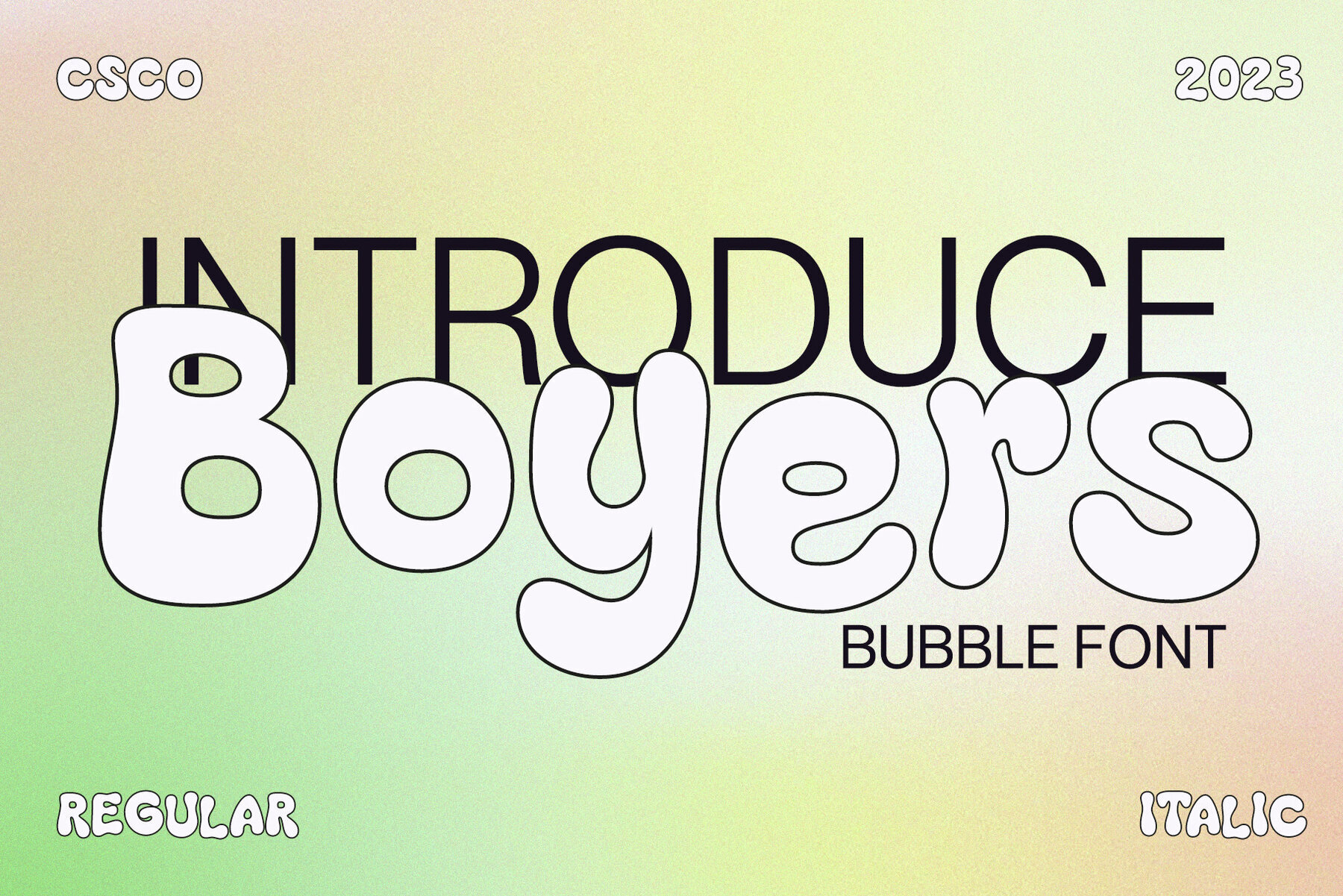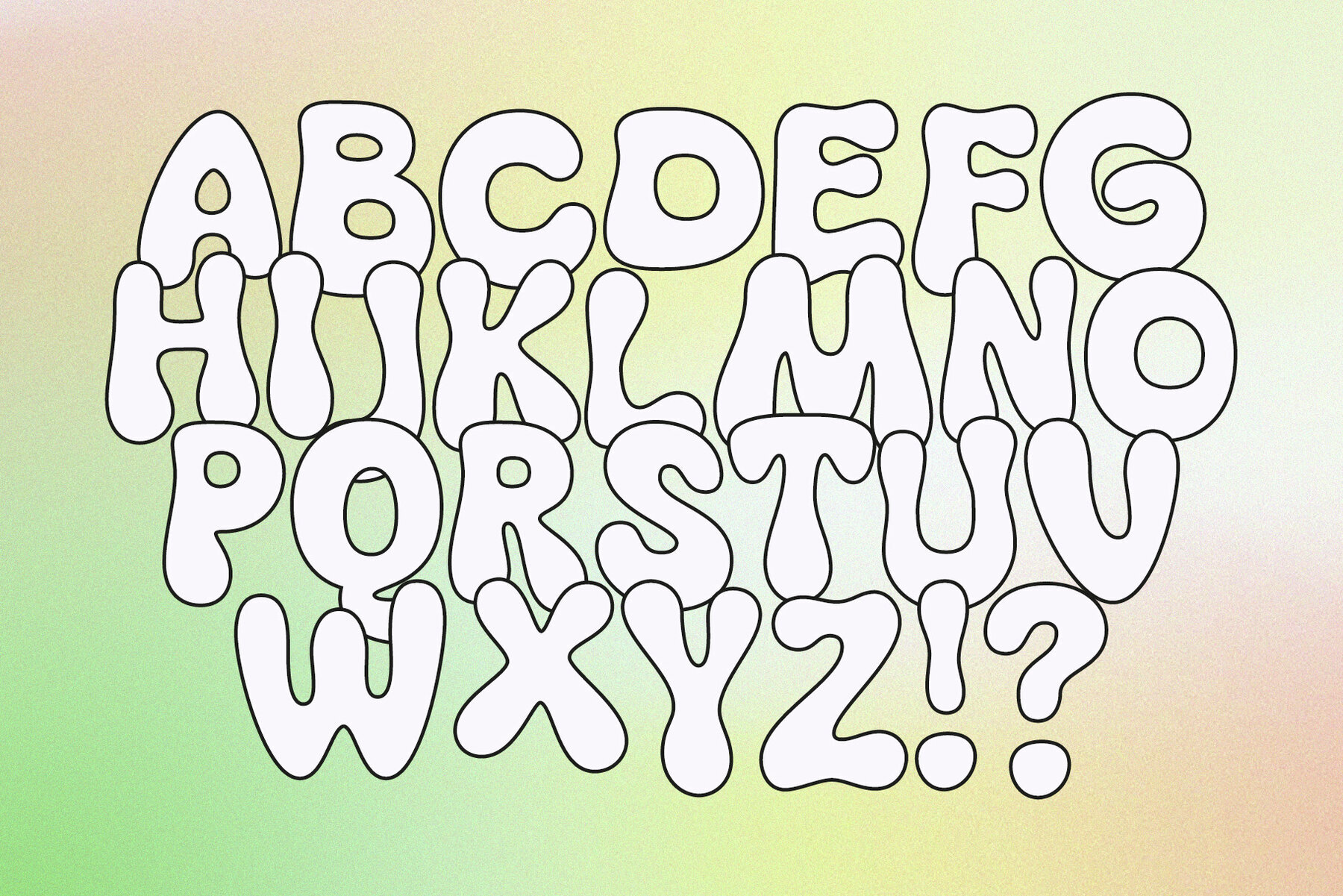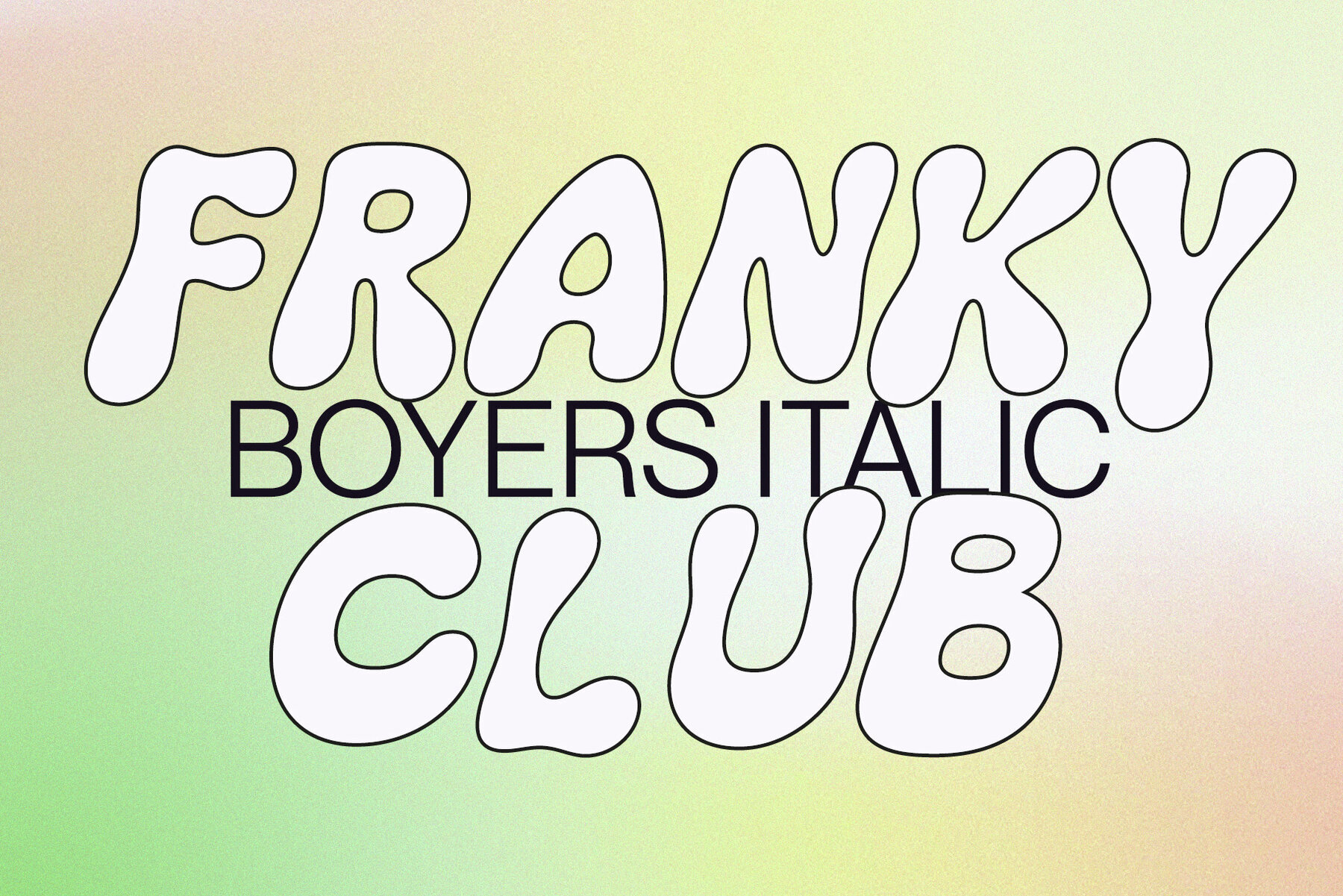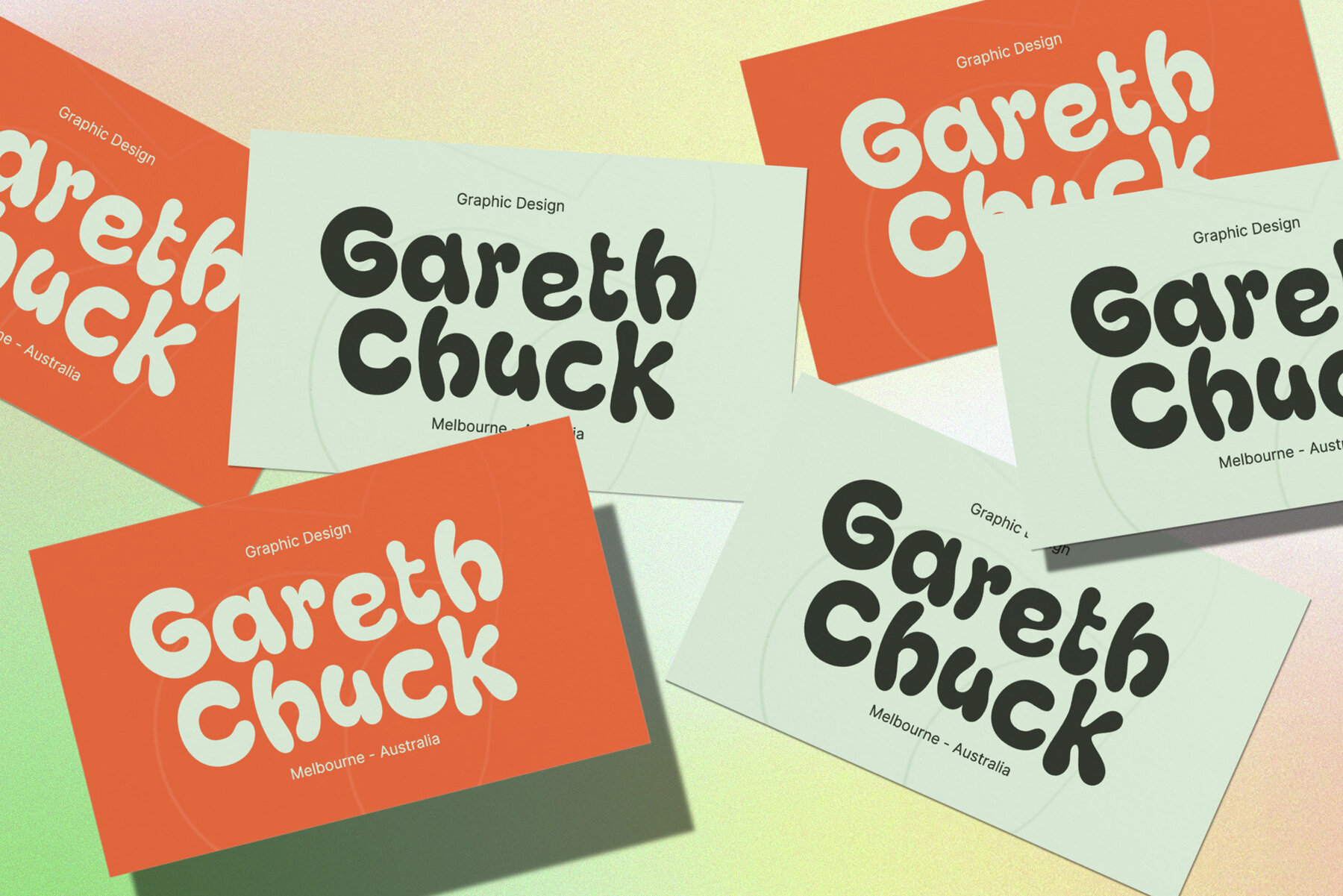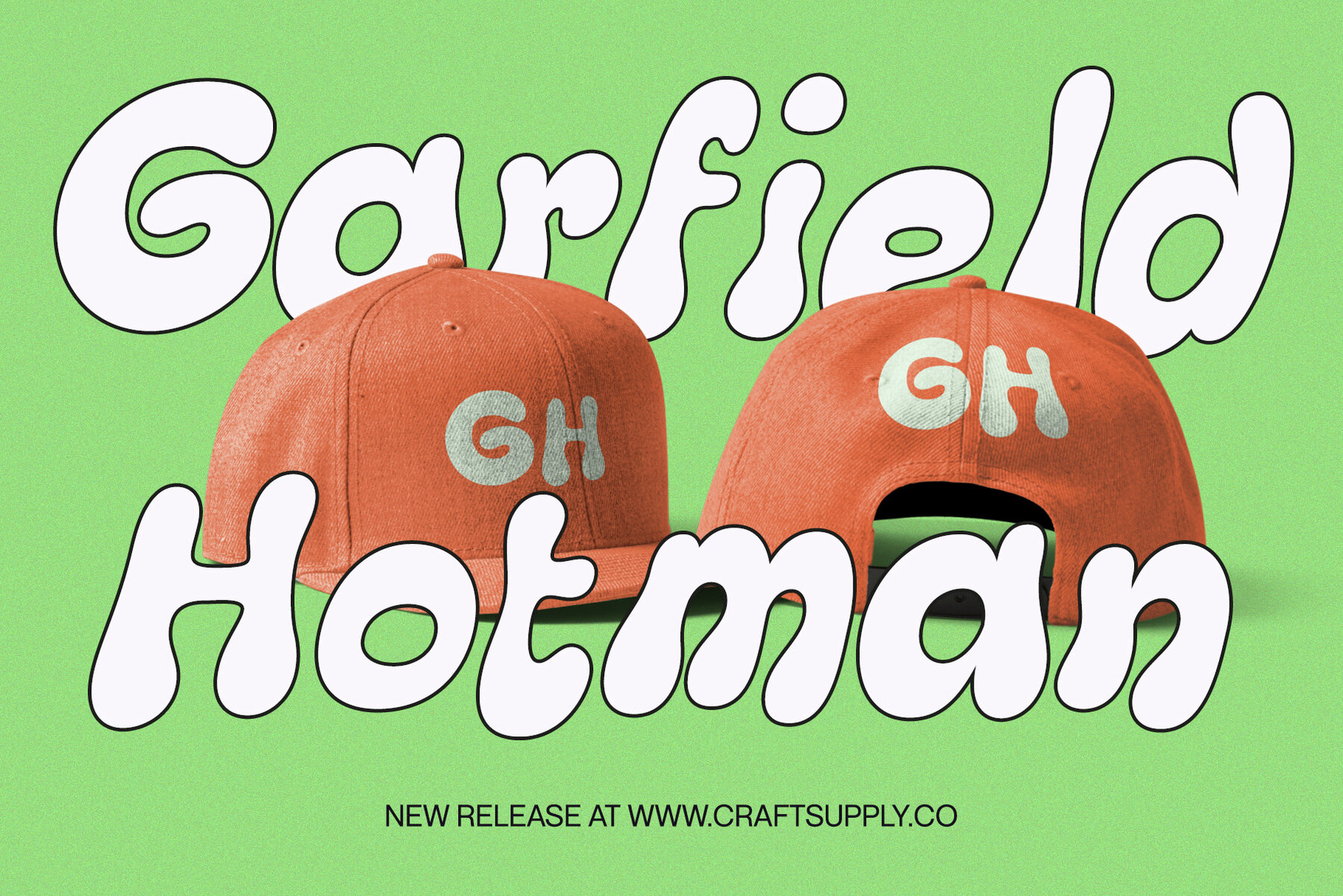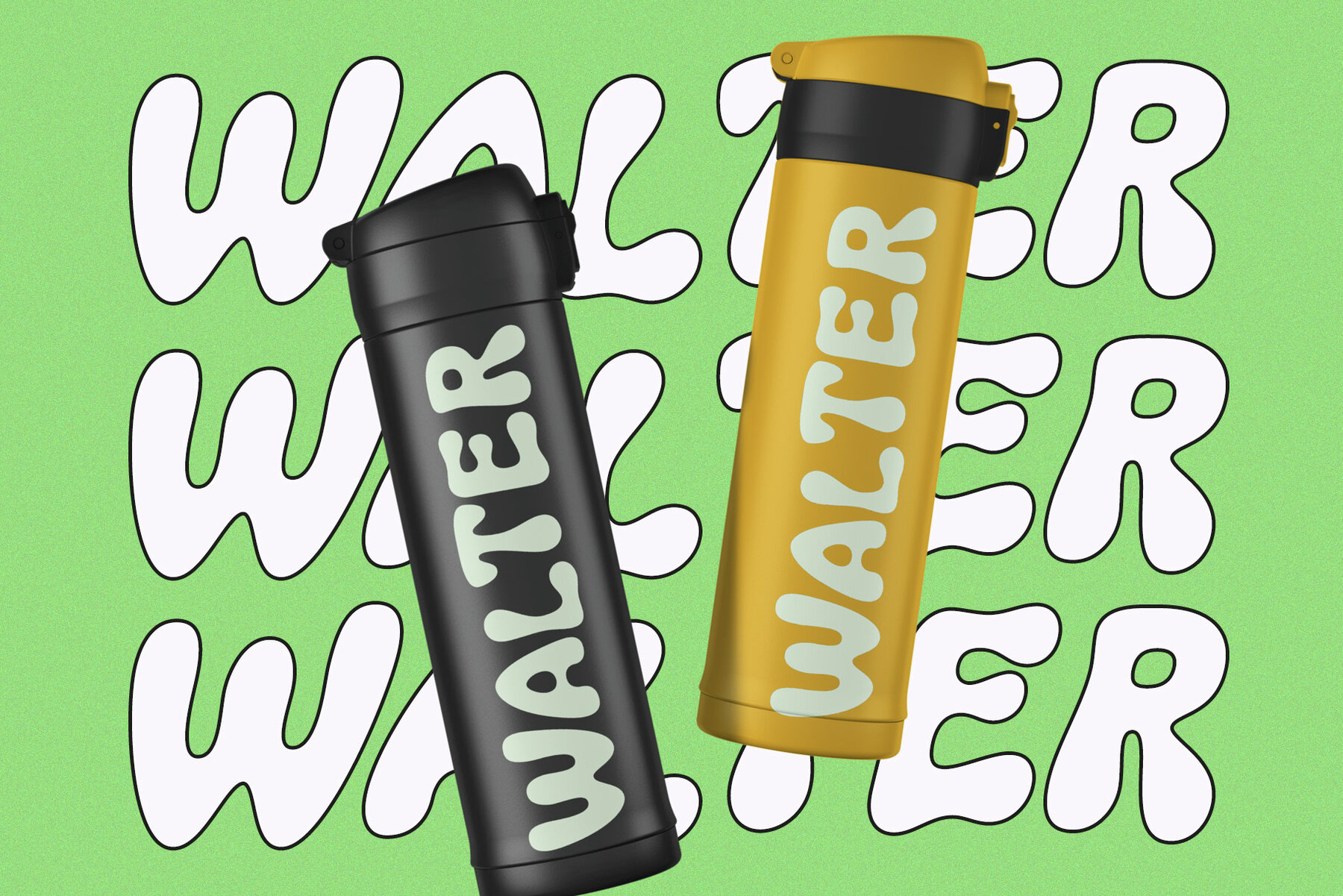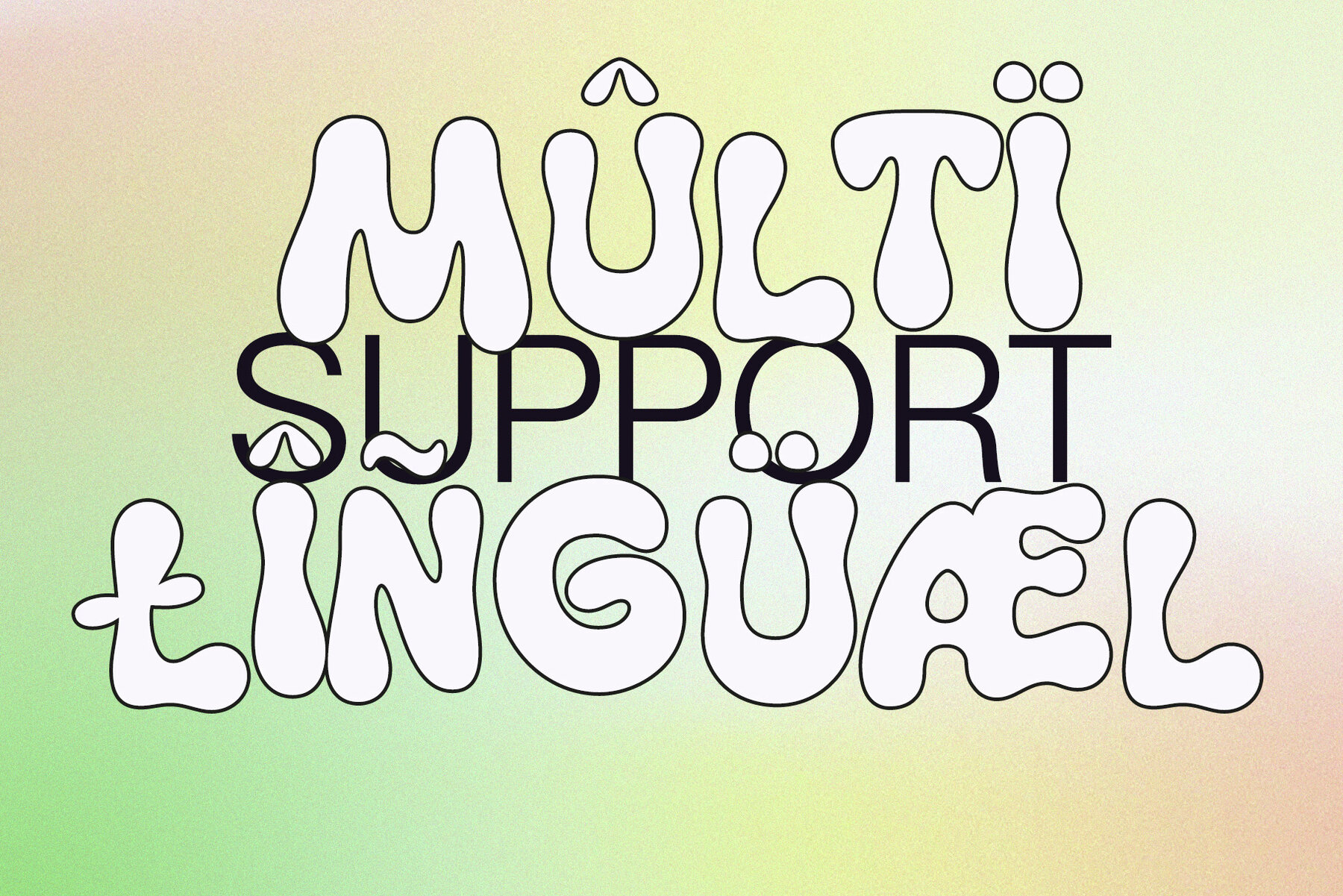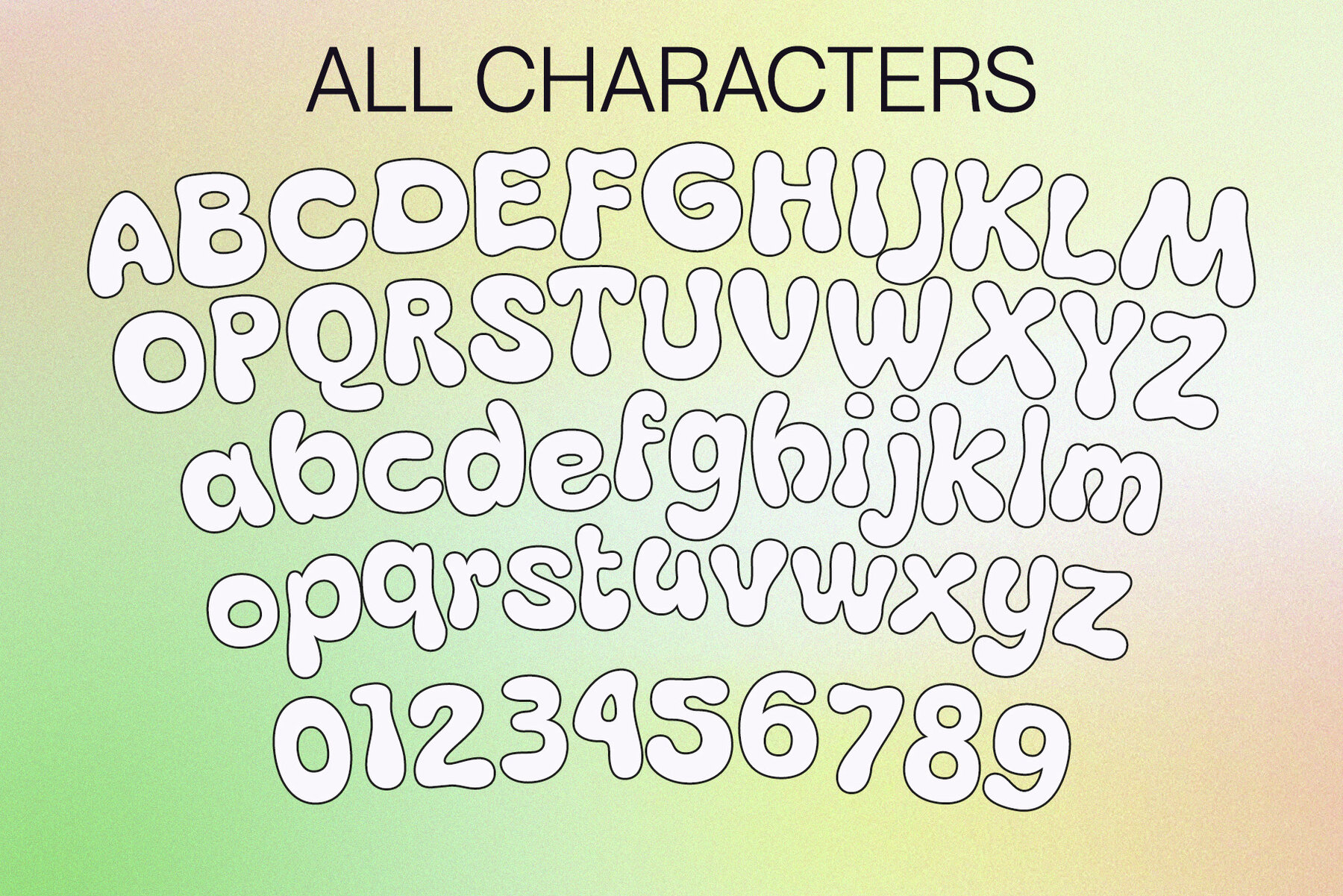
Boyers Font
Boyers embodies the delightful essence of bubble-inspired cuteness, making it an ideal choice for all your display needs. Its playful charm captures the whimsical qualities of balloons, creating a font that's both fun and endearing. Going beyond mere cuteness, Boyers showcases imaginative playfulness, making it versatile for a wide range of creative projects. Whether designing greeting cards, posters, or children's book covers, Boyers adds a touch of whimsy to your creations.Boyers: The Adorable Bubble Font
Imaginative Playfulness